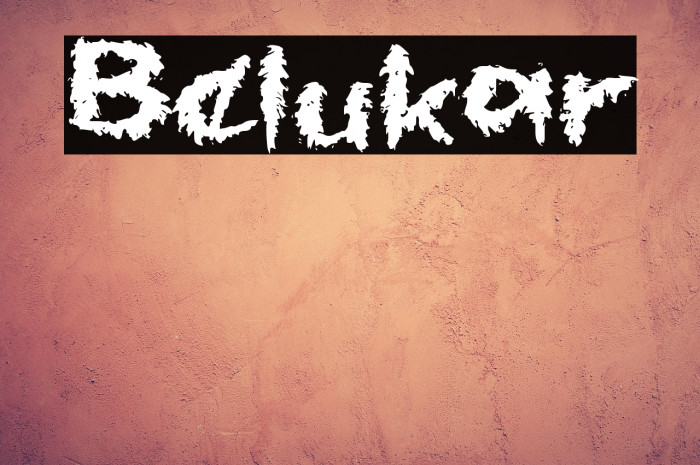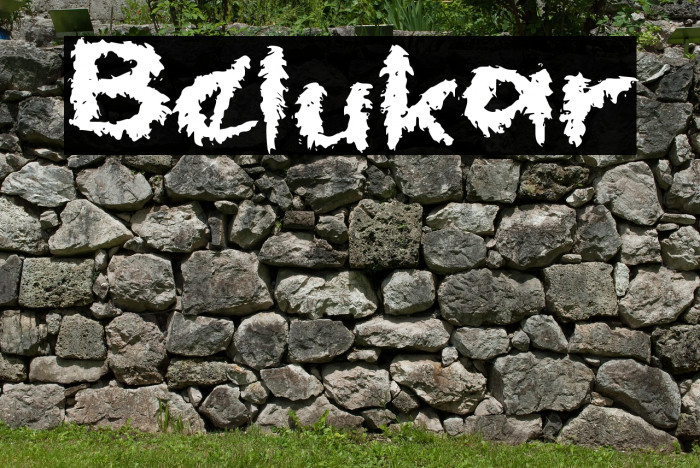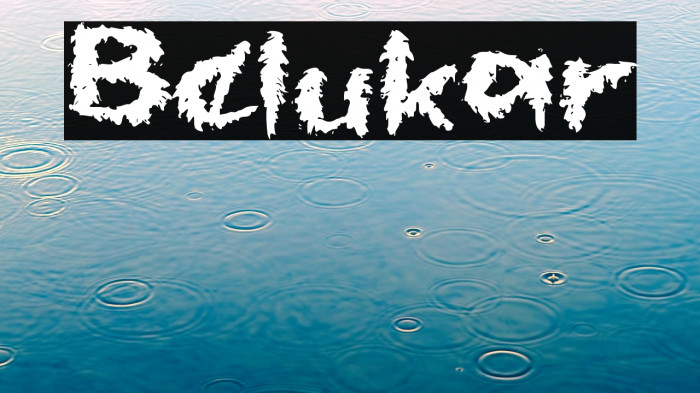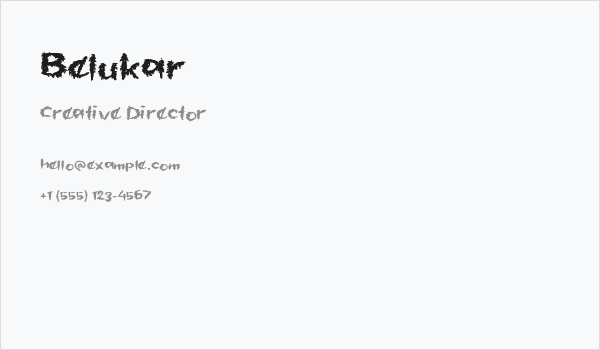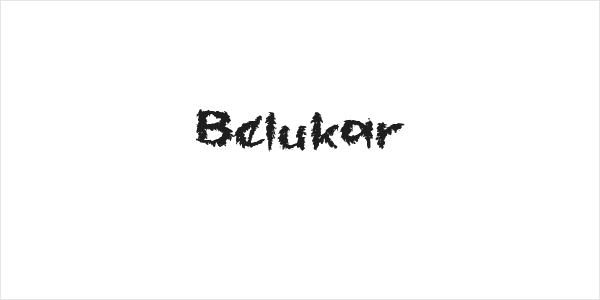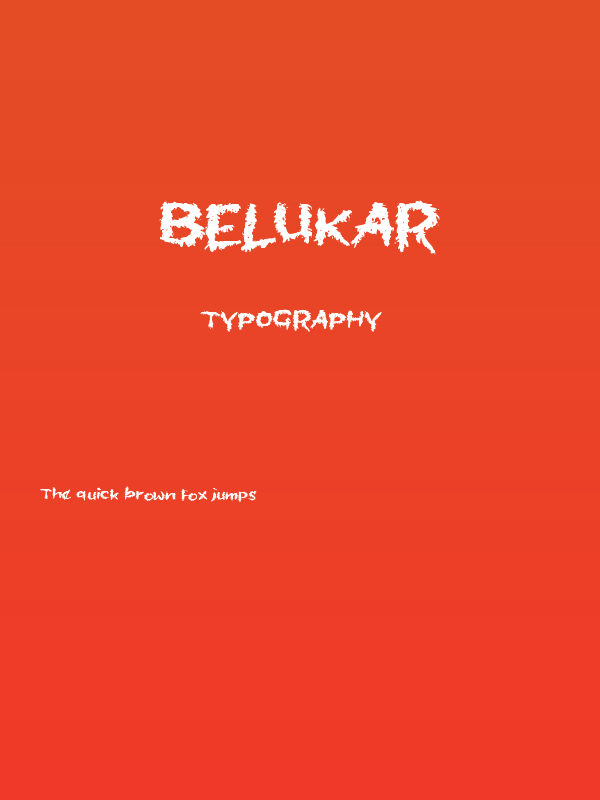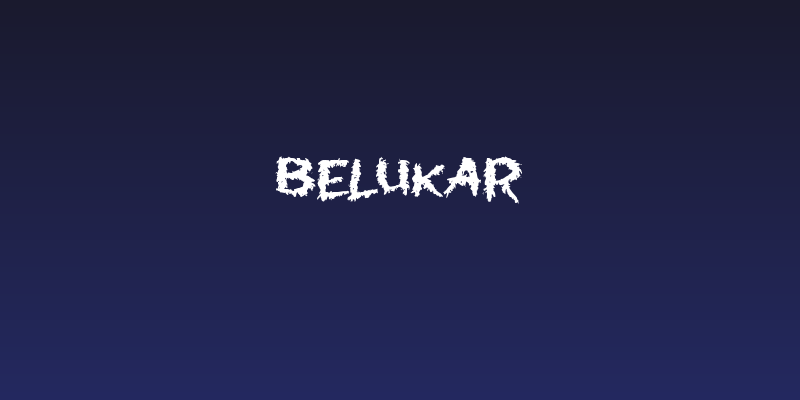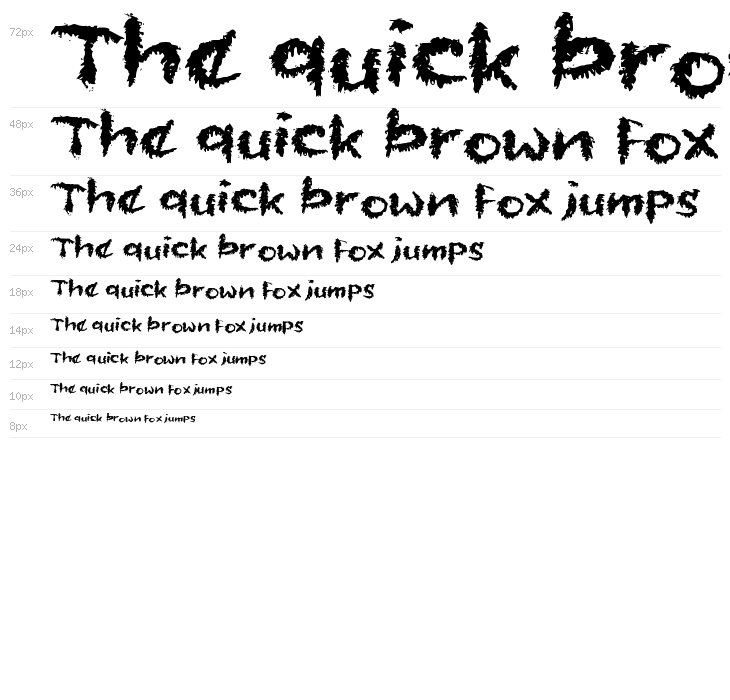
Belukar Font
Belukar Description
This font features a rugged, textured appearance reminiscent of natural elements like foliage or rough brush strokes. The characters are bold and dynamic, with irregular edges that give a sense of movement and energy. The uppercase and lowercase letters maintain a consistent style, with each character uniquely crafted to enhance the overall organic feel. Numbers and special characters follow the same design principles, ensuring a cohesive look across all glyphs. This font is ideal for projects that require a raw, untamed aesthetic, making it perfect for nature-themed designs or edgy, artistic expressions.
| Proposed Projects | Nature-themed designs, artistic expressions, edgy branding, event posters. |